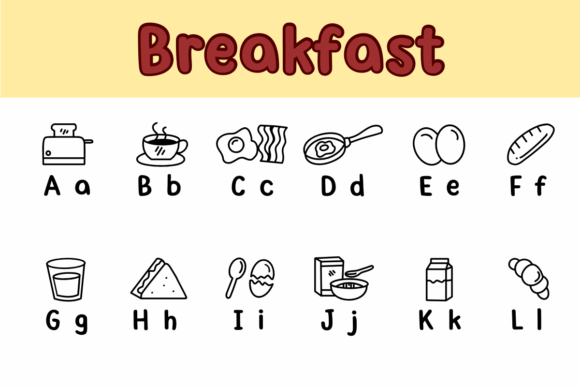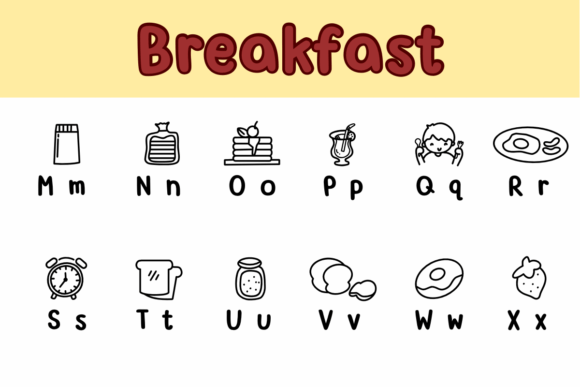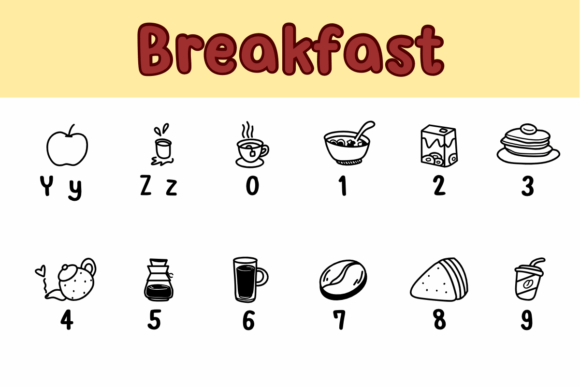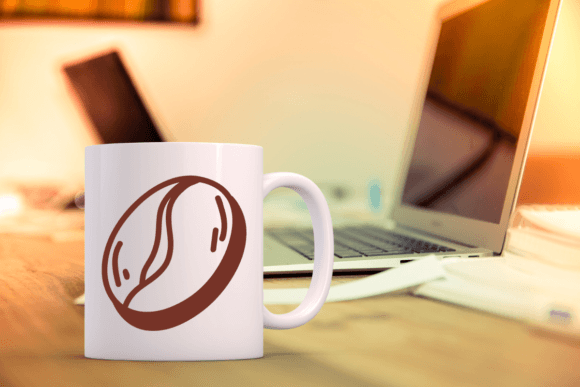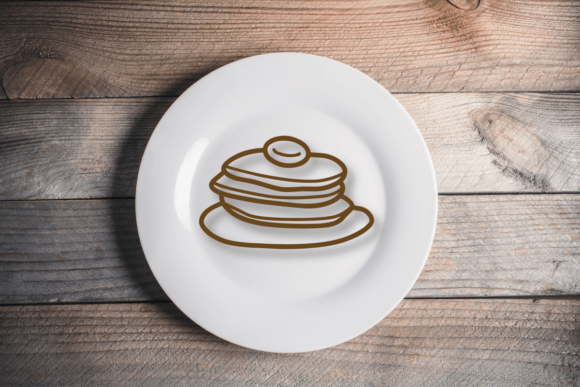
Introducing Breakfast Font: A Deliciously Fun Dingbat Font
Are you tired of using the same old boring fonts in your designs? Look no further! Meet “Breakfast”, a fun and unique font that’s sure to add a dash of excitement to your creative projects. This delightful font is a type of “dingbat,” which means it’s filled with cute little pictures instead of regular letters. And the best part? It’s all about breakfast!
What’s a Dingbat Font?
For those who may not be familiar, a dingbat font is a type of font that features symbols or icons instead of letters. These fonts are often used to add a touch of whimsy and personality to designs. And “Breakfast” is no exception. This charming font is packed with tiny drawings of tasty morning treats that are sure to make your designs stand out.
A Breakfast Bonanza
So, what can you expect to find in the “Breakfast” font? Imagine a mini breakfast buffet right in your letters! You’ll discover adorable illustrations of eggs, bacon, pancakes, and more. Whether you’re designing a menu, a greeting card, or a social media post, this font is sure to add a smile to your audience’s faces.
“Breakfast” is a versatile font that’s perfect for designers and crafters alike. Whether you’re creating digital content or handmade crafts, this font is sure to inspire your creativity. Use it to add a personal touch to your projects, or as a fun way to emphasize a message. The possibilities are endless!
Some Fun Ideas for Using Breakfast Font
- Create a mouth-watering menu for a breakfast restaurant or café
- Design a set of adorable greeting cards for breakfast lovers
- Add a playful touch to your social media posts with breakfast-themed illustrations
- Make a set of custom stickers or washi tape featuring breakfast icons
- Use the font to create a fun and educational alphabet for kids
Why You’ll Love Breakfast Font
So, what sets “Breakfast” apart from other fonts? Here are just a few reasons why you’ll love this deliciously fun font:
- Unique and playful illustrations: The “Breakfast” font features one-of-a-kind illustrations that are sure to delight your audience.
- Versatile: Use the font in a variety of projects, from digital content to handmade crafts.
- Fun and engaging: The “Breakfast” font is sure to add a touch of whimsy and personality to your designs.
Get Ready to Start Your Day off Right
Are you ready to add a dash of fun and personality to your designs? Look no further than the “Breakfast” font. With its adorable illustrations of breakfast treats, this font is sure to start your day off right. So why wait? Download the “Breakfast” font today and get creative!
In conclusion, the “Breakfast” font is a fun and unique dingbat font that’s perfect for designers and crafters alike. With its adorable illustrations of breakfast treats, this font is sure to add a touch of whimsy and personality to your designs. Whether you’re creating digital content or handmade crafts, the “Breakfast” font is sure to inspire your creativity. So why wait? Download the “Breakfast” font today and start creating your own deliciously fun designs!